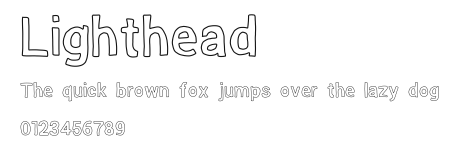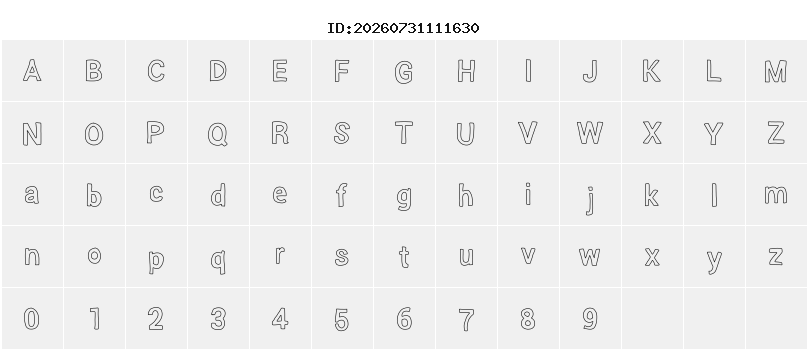
Lighthead Preview
• Font Name: Lighthead
About Lighthead.ttf
Lighthead.ttf is a modern, elegant sans-serif font designed for ultimate readability and visual harmony. Perfect for branding, headlines, web design, and print materials.